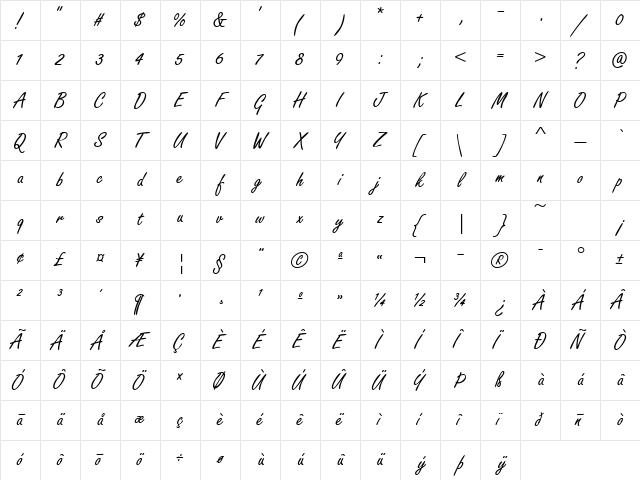
TyroScriptSSK Regular
Complete TyroScriptSSK Regular glyph index. Displaying only characters natively supported by TyroScriptSSK Regular font.
Design Context for TyroScriptSSK
TyroScriptSSK flows with the natural rhythm of handwritten lettering, making it ideal for designs that call for warmth and personal expression.
Font Pairing: Combine TyroScriptSSK with a simple geometric sans for maximum contrast - the tension between flowing curves and clean structure is a classic typographic pairing.
Pro Tip: Use TyroScriptSSK for short runs of text - names, titles, or taglines. Extended body copy in script faces tires the eye quickly.